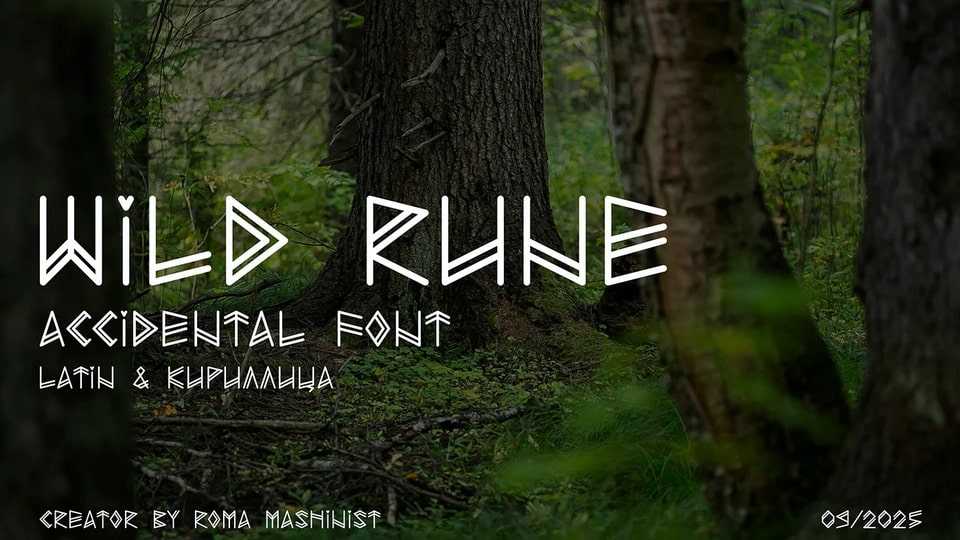
Download Wild Rune font, an experimental display typeface that draws inspiration from the raw energy of nature and the mystique of ancient runes.
Designer: Roma Mashinist